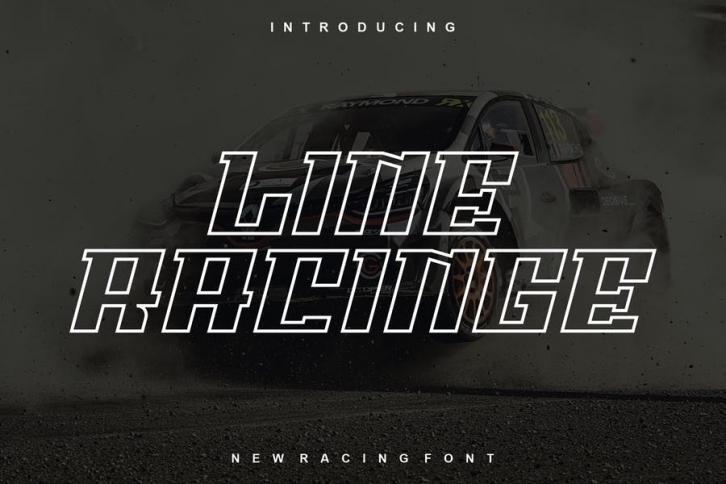
Introducing our new product Line Racinge Font - Modern Font
Line Racinge Font - Modern Font is a bold and authentic display font. The font is suitable for any branding project like logo, t-shirt printing, esport, and many more. outstanding in a wide range of contexts.